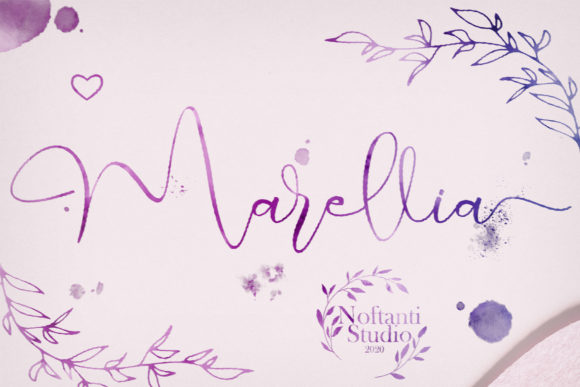
Introducing Marellia Font, a captivating script font family destined to elevate your design projects to new heights of elegance and charm. Created by the talented artist noftanti, Marellia embodies the essence of grace and sophistication, effortlessly blending timeless beauty with contemporary flair.
Journey into a world of delicate strokes, enchanting curves, and mesmerizing glyphs. Marellia's varying baseline adds a touch of playful dynamism, while its smooth lines and gorgeous alternates provide endless opportunities for creative expression. Unleash your imagination and let Marellia transform your words into breathtaking works of art.
Embrace the versatility of Marellia, a font family that effortlessly adapts to a myriad of design endeavors. Whether you're crafting stunning logos, enchanting invitations, or captivating social media graphics, Marellia seamlessly elevates your creations, lending them an air of sophistication that resonates with your audience.
Design with Marellia and witness the transformation of your projects. Experience the joy of creating designs that captivate and inspire, leaving an indelible mark on your audience. Let Marellia's elegance and charm infuse your designs with a touch of magic, making them truly unforgettable.
Don't settle for ordinary fonts. Embrace the extraordinary with Marellia, the script font family that ignites creativity and transforms your designs into masterpieces. Download Marellia today and embark on a journey of endless possibilities.